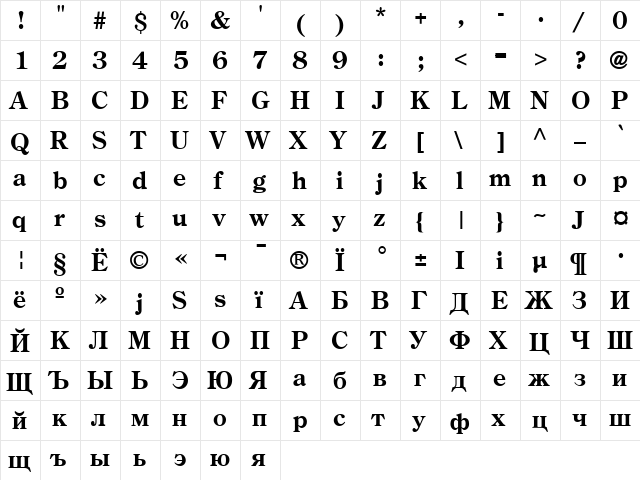
AG_CenturyOldStyle Bold
Design Context for AG_CenturyOldStyle Typeface
AG_CenturyOldStyle brings classic typographic sensibility to the table — its serifs and measured letterforms reflect centuries of print heritage. The heavy weight commands attention and anchors typographic hierarchies.